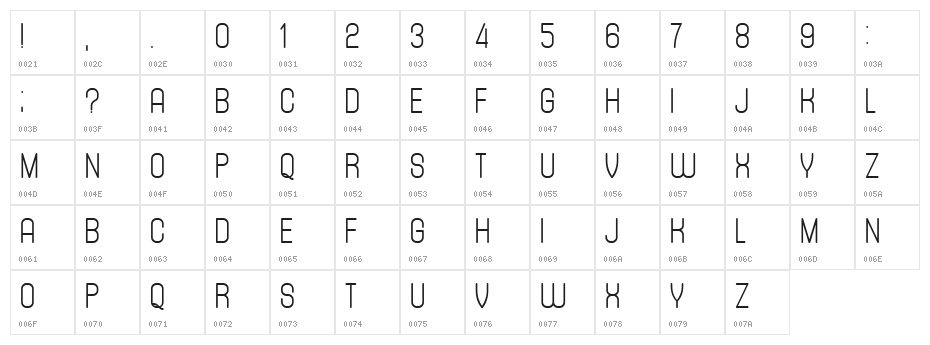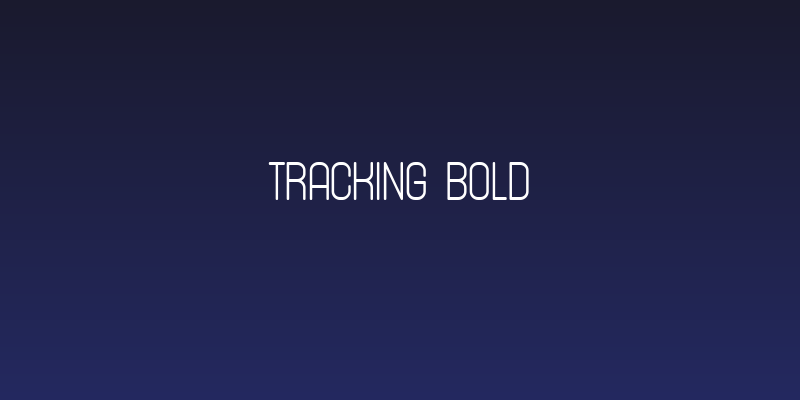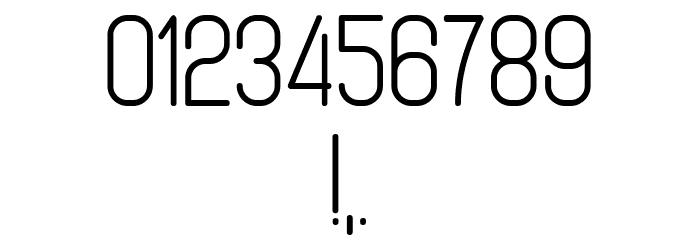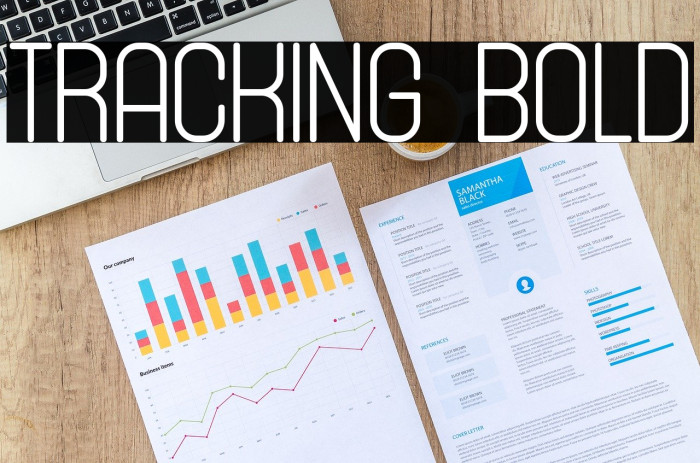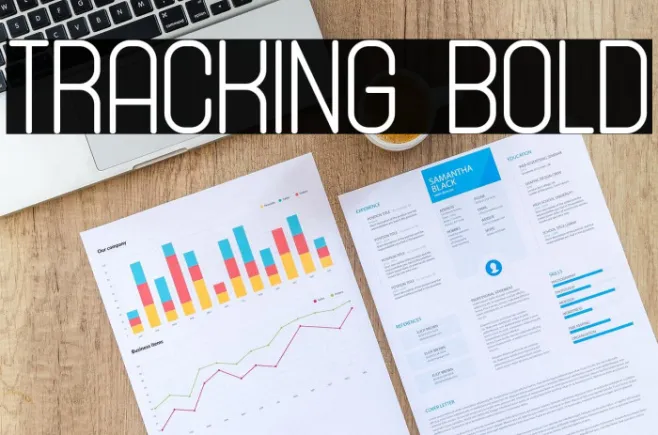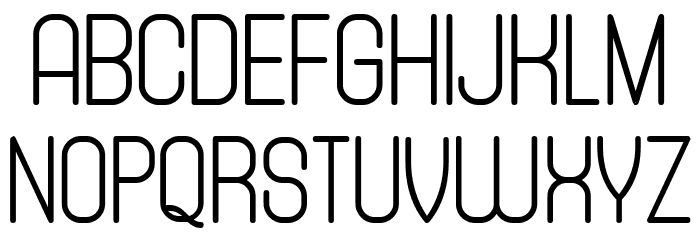
Tracking Bold Font
Tracking Bold Description
This font features a modern, geometric sans-serif style with clean, rounded edges and a uniform stroke width. The characters are tall and narrow, giving it a sleek and contemporary appearance. The uppercase and lowercase letters maintain a consistent height, contributing to its orderly and structured look. The numerals and special characters follow the same design principles, ensuring a cohesive visual identity across all glyphs. Its simplicity and clarity make it highly readable, while the rounded forms add a touch of friendliness to the overall design.
TRACKING-BOLD UPPERCASE
TRACKING-BOLD LOWERCASE
TRACKING-BOLD OTHER CHARS
| Use Case | Headlines, Logos, Digital Interfaces |
| Proposed Projects | Ideal for branding, signage, digital interfaces, and editorial design where a clean and modern aesthetic is desired. |